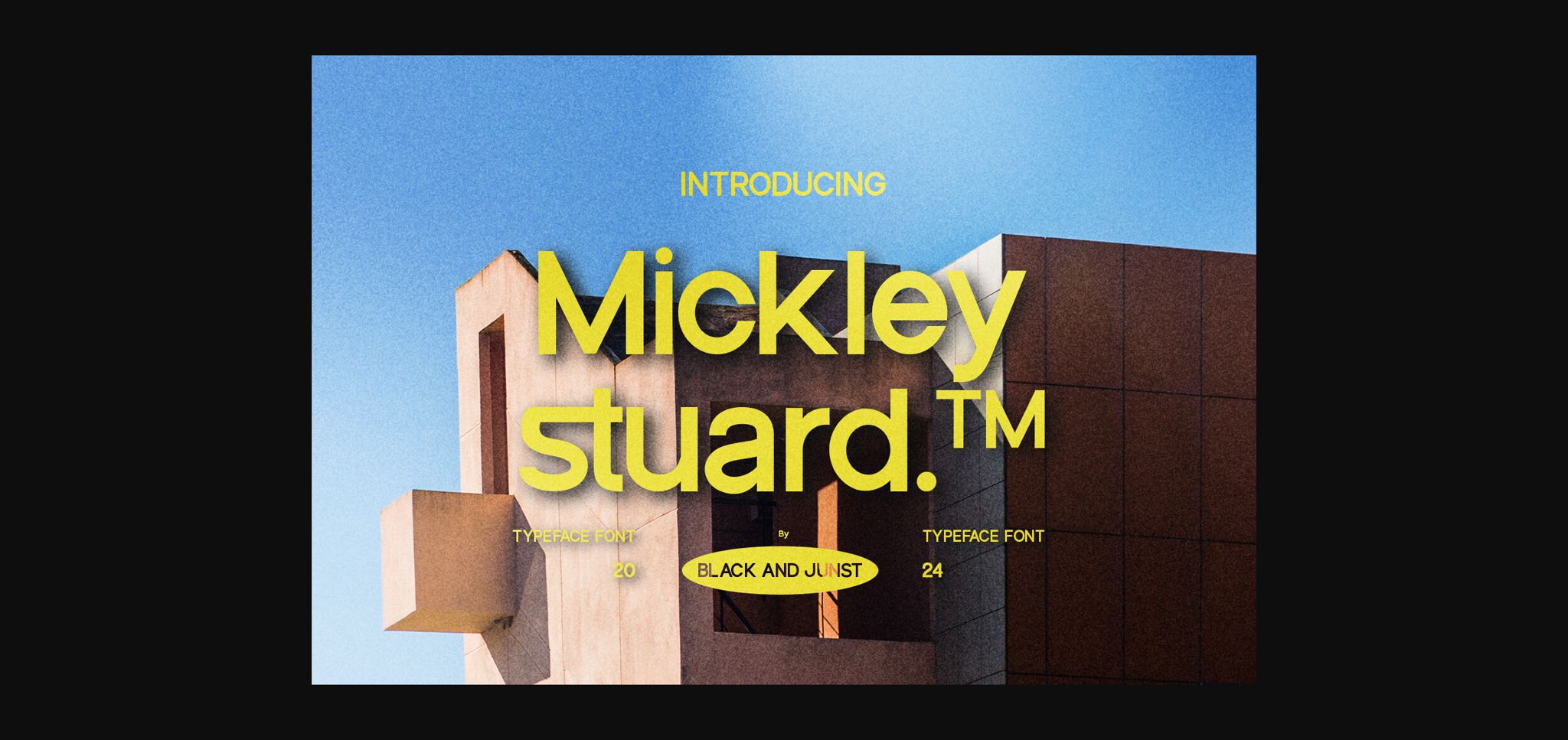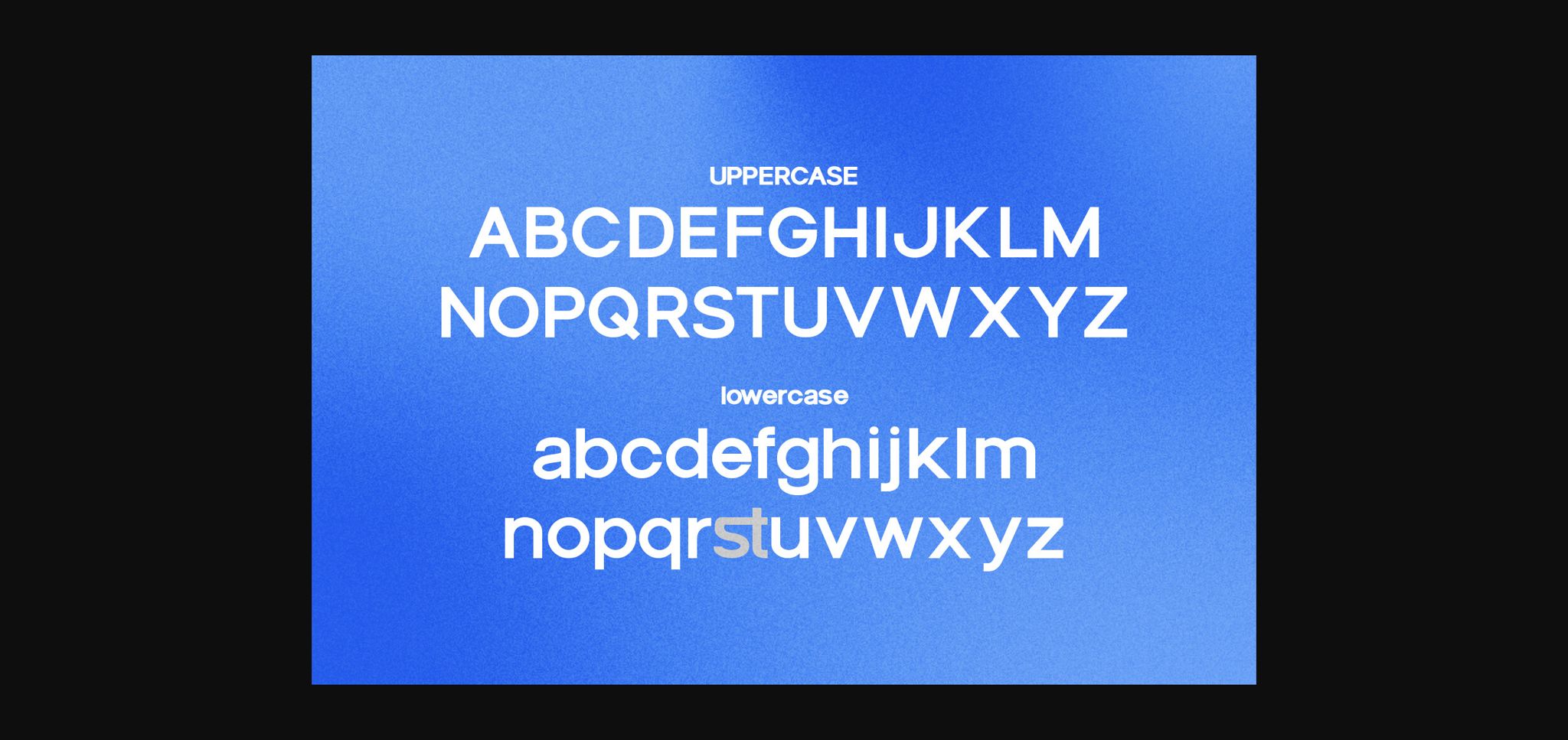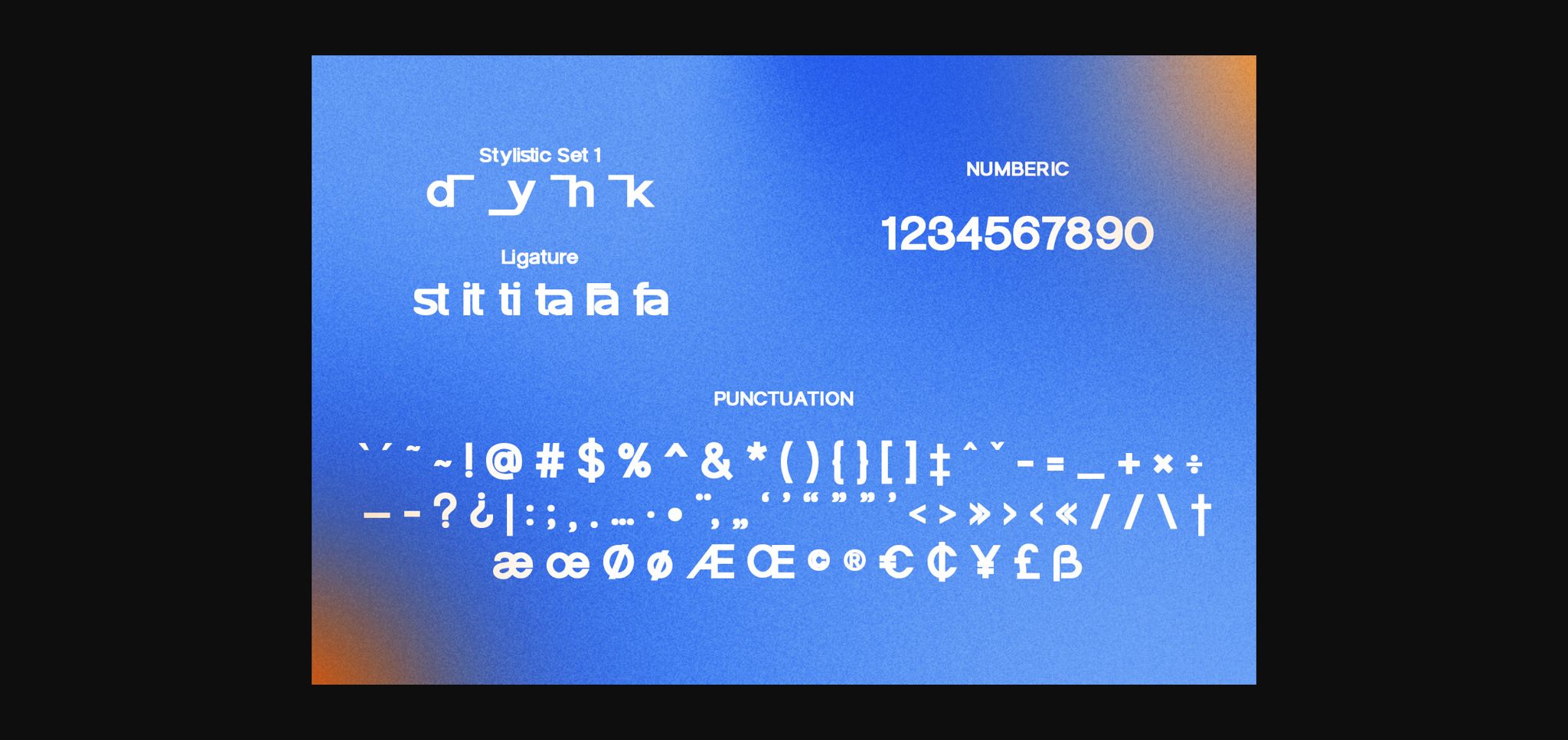
About Mickley Stuard Font
Introducing Mickley Stuardâ„¢, a strikingly captivating yet timeless font designed to leave an indelible mark. This remarkable typography enhances brand recall with its distinctive flair, balanced with classic strokes that make it as universal as it is unique. The unparalleled design of Mickley Stuardâ„¢ is suitable for diverse projects, keeping it contemporary and timeless simultaneously. Providing you with OTF, TTF, WOFF, and EOT file formats to suit diverse needs. With Mickley Stuardâ„¢, experience typographic artistry at its finest.